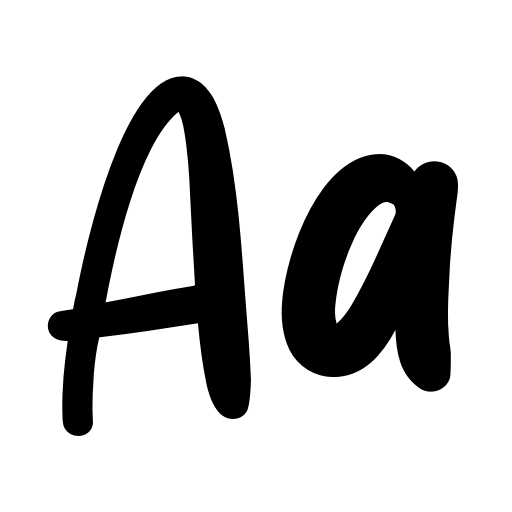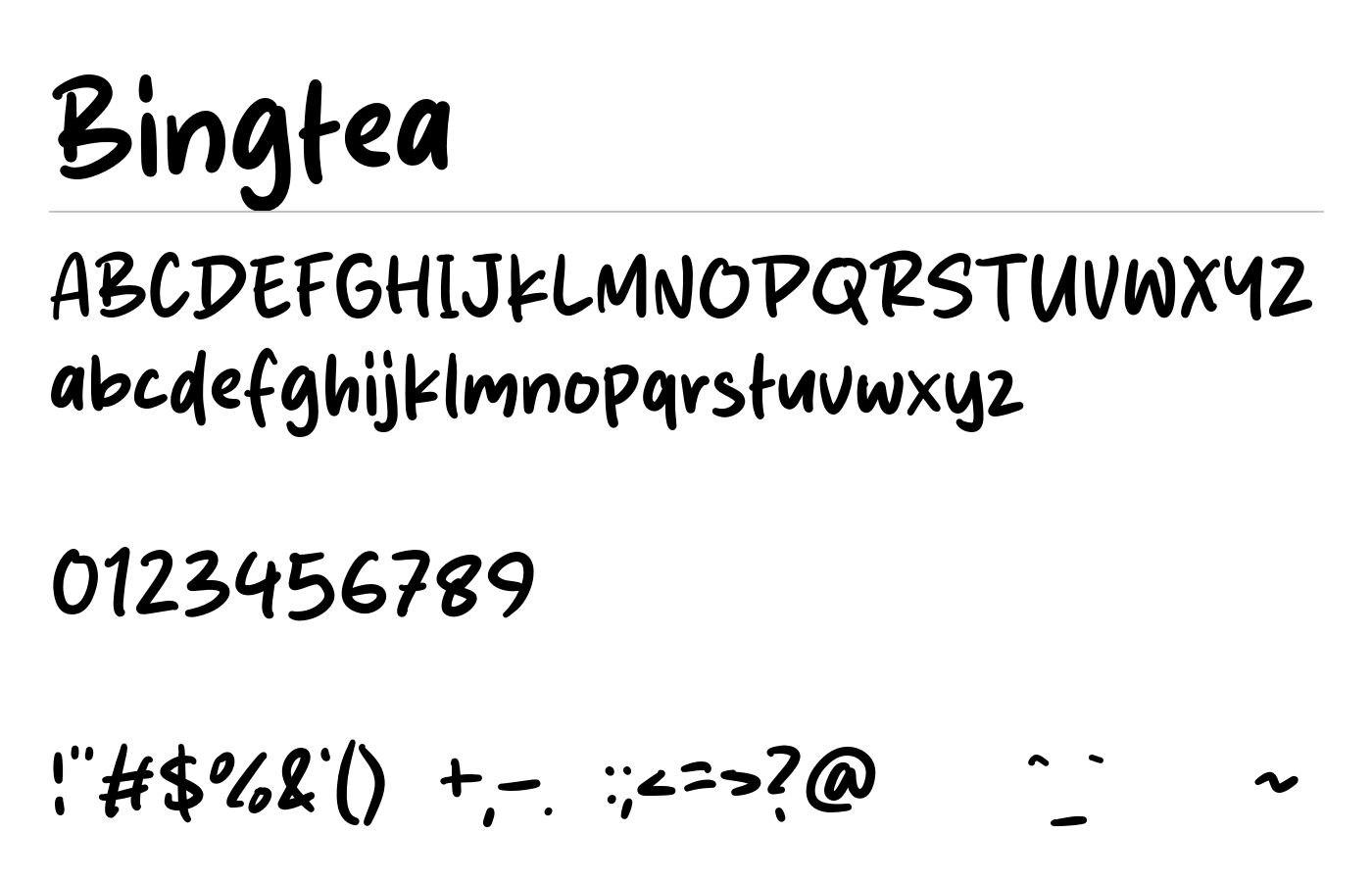
Bingtea is a casual, handwritten-style sans serif font with a friendly and approachable feel. Its smooth, rounded strokes and consistent medium weight make it perfect for informal designs, adding a playful yet clear personality. Ideal for branding, children’s materials, or relaxed editorial projects, Bingtea brings warmth and simplicity to any creative work.
Bingtea Font
About Bingtea Font
| Font family | Bingtea Font |